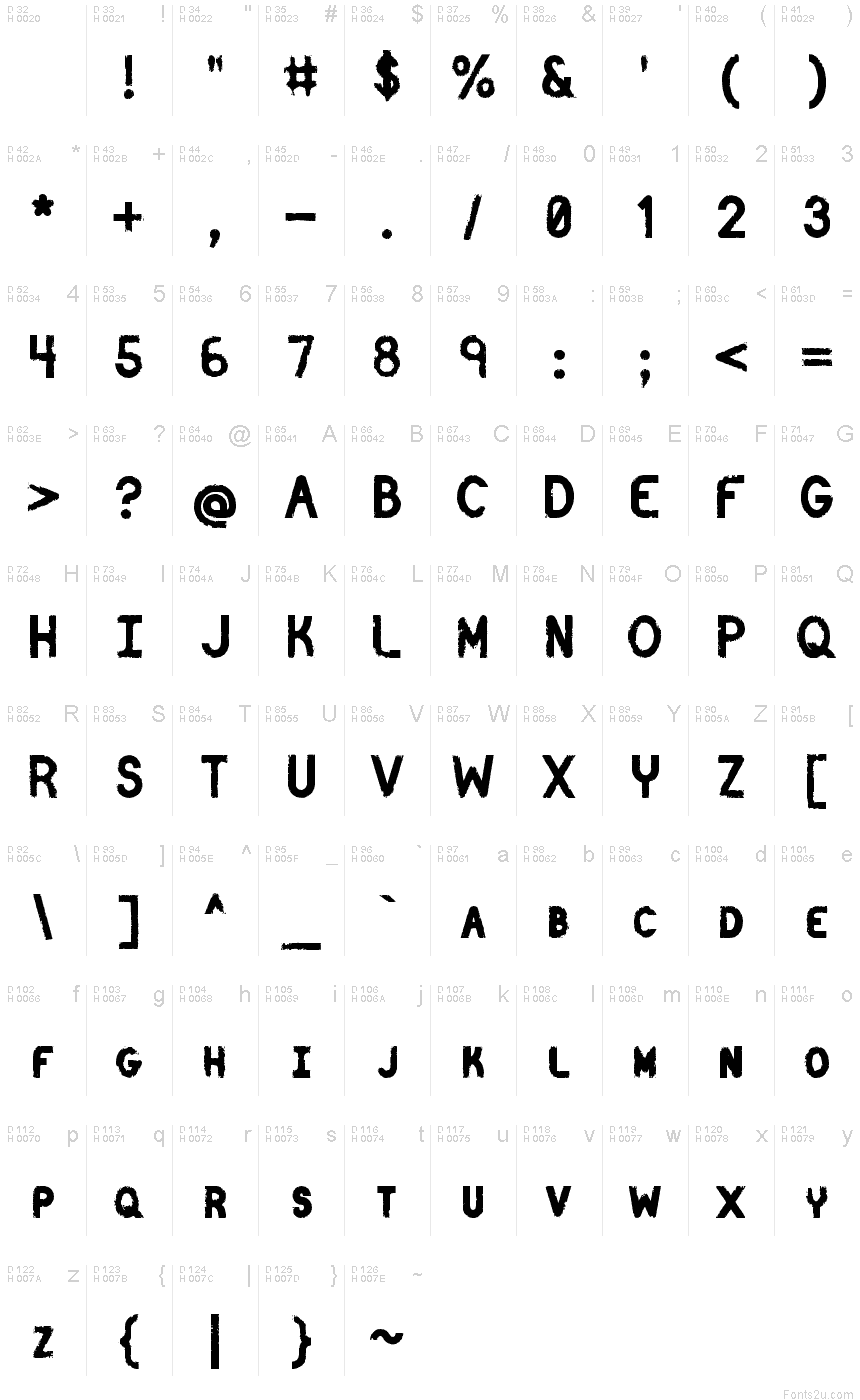
Catenary Stamp
Catenary Stamp by CC Marshall of Active Depth is a free eroded display font with broad, forceful capitals and the uneven bite of heavily inked type. Ragged edges and scattered gaps give the letters a convincing stamped texture.
Designers drawn to industrial or distressed themes will find it useful for posters and merchandise. Its blunt shapes also suit brewery packaging and rugged event graphics. Against weathered photography or screen-printed illustrations, the broken texture can become part of the surface rather than separate lettering.